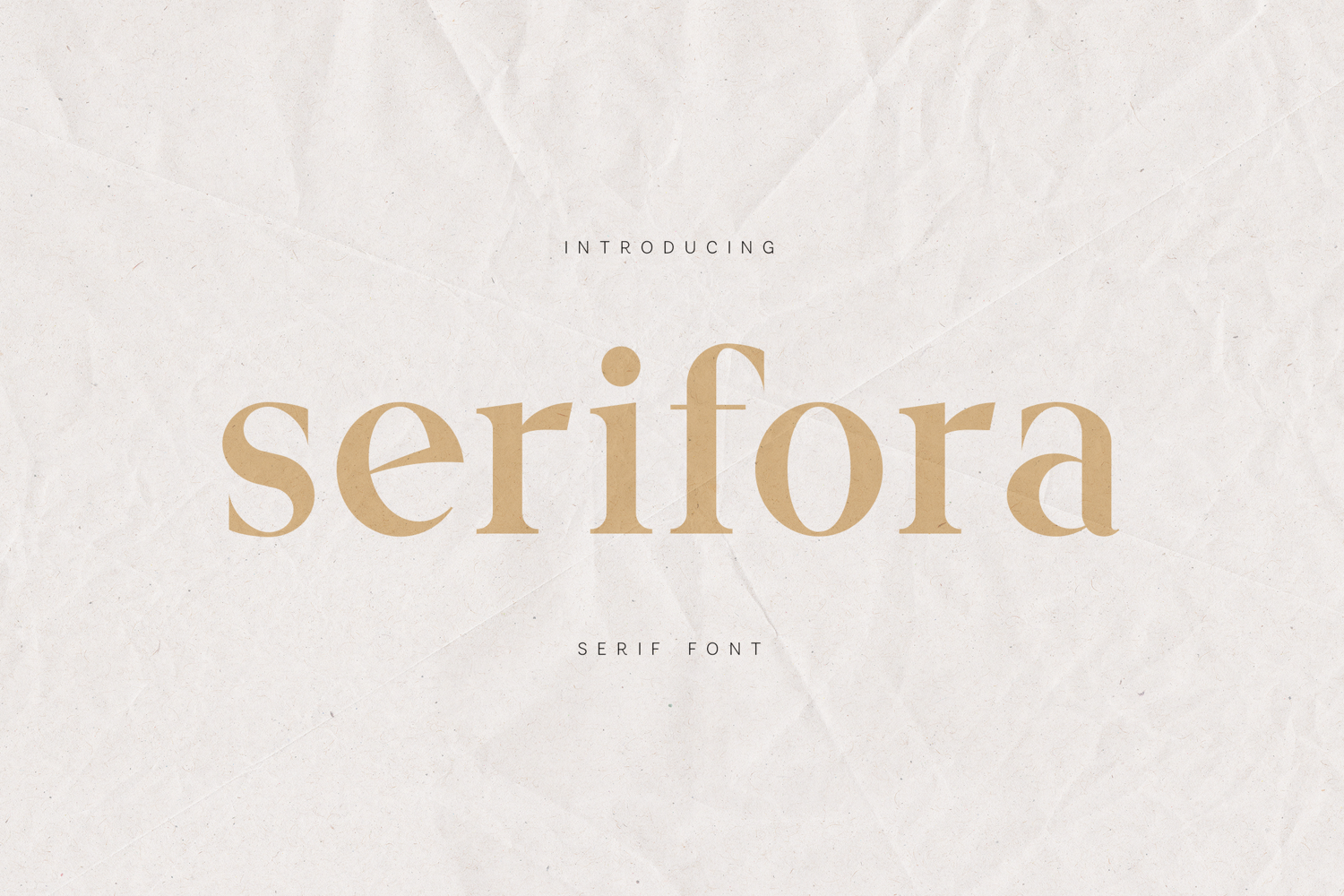
Serifora Elegant Classic Serif Font
Serifora is an elegant classic serif font designed with soft contrast, refined curves, and timeless proportions. Inspired by traditional serif typography with a modern sensibility, Serifora delivers a warm, sophisticated look that feels natural, balanced, and highly readable.
Its gentle stroke modulation and rounded details make Serifora ideal for editorial design, book covers, branding, invitations, packaging, and premium visual identities. The font carries a calm, human character that works beautifully in both display settings and carefully spaced text layouts.
Serifora is versatile and dependable, offering designers a serif typeface that feels classic without appearing dated. It’s especially suited for projects that require elegance, clarity, and a subtle sense of craft.
The font includes a full character set with extensive multilingual support, numerals, punctuation, and symbols, making it suitable for professional use across print and digital media.